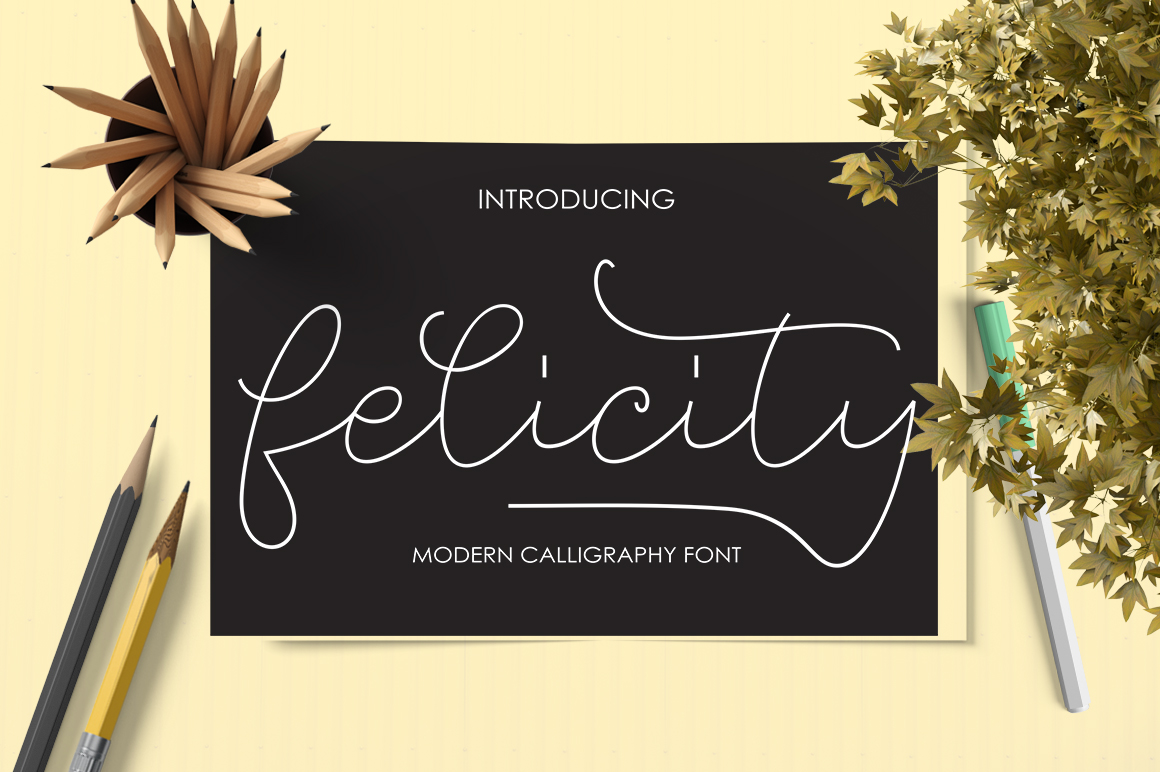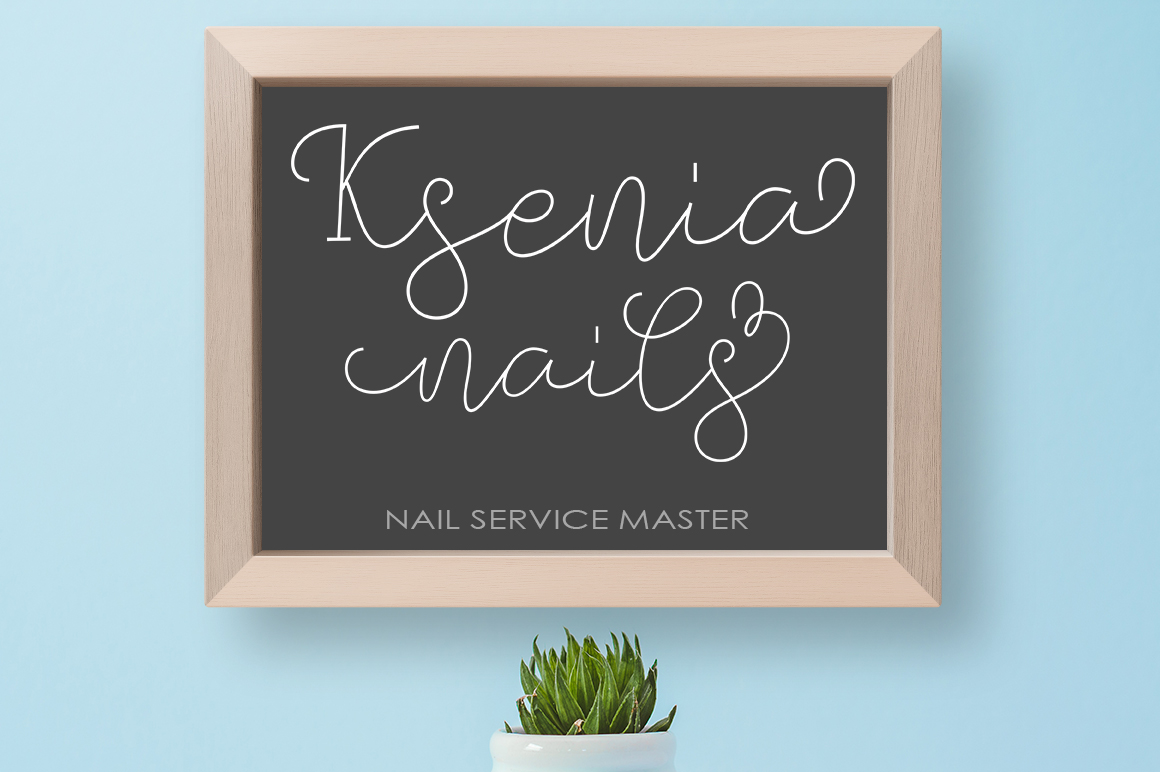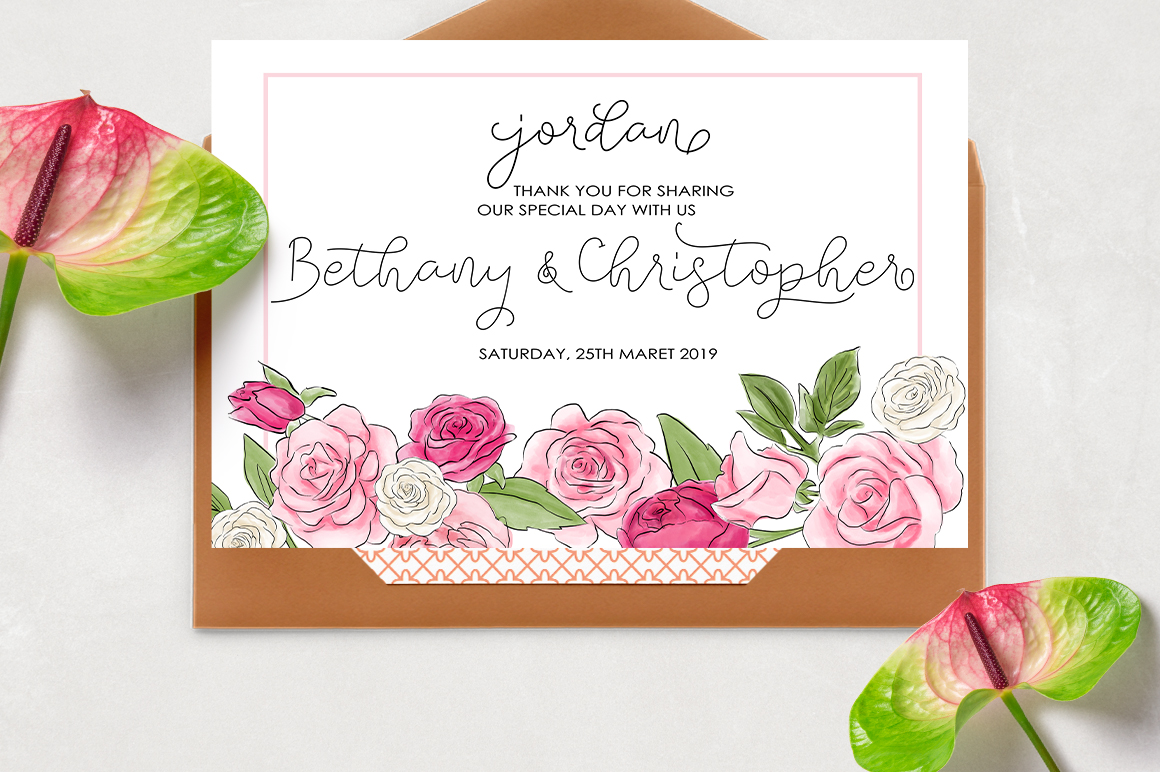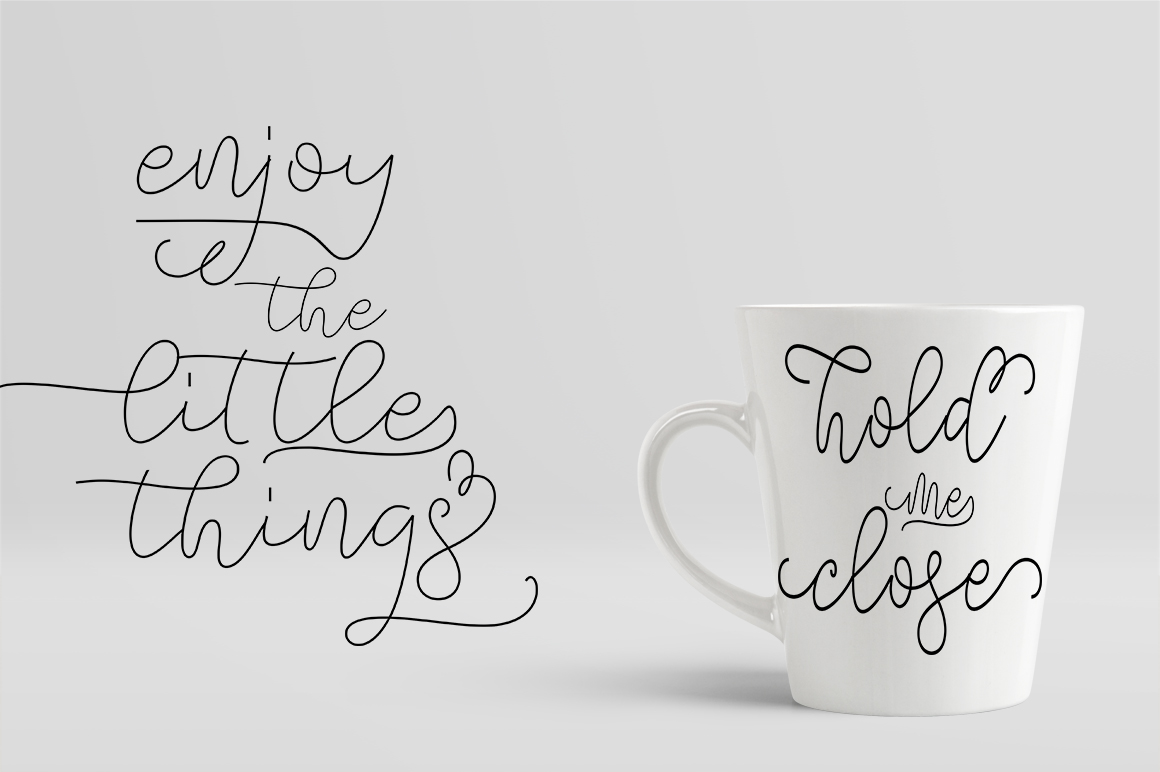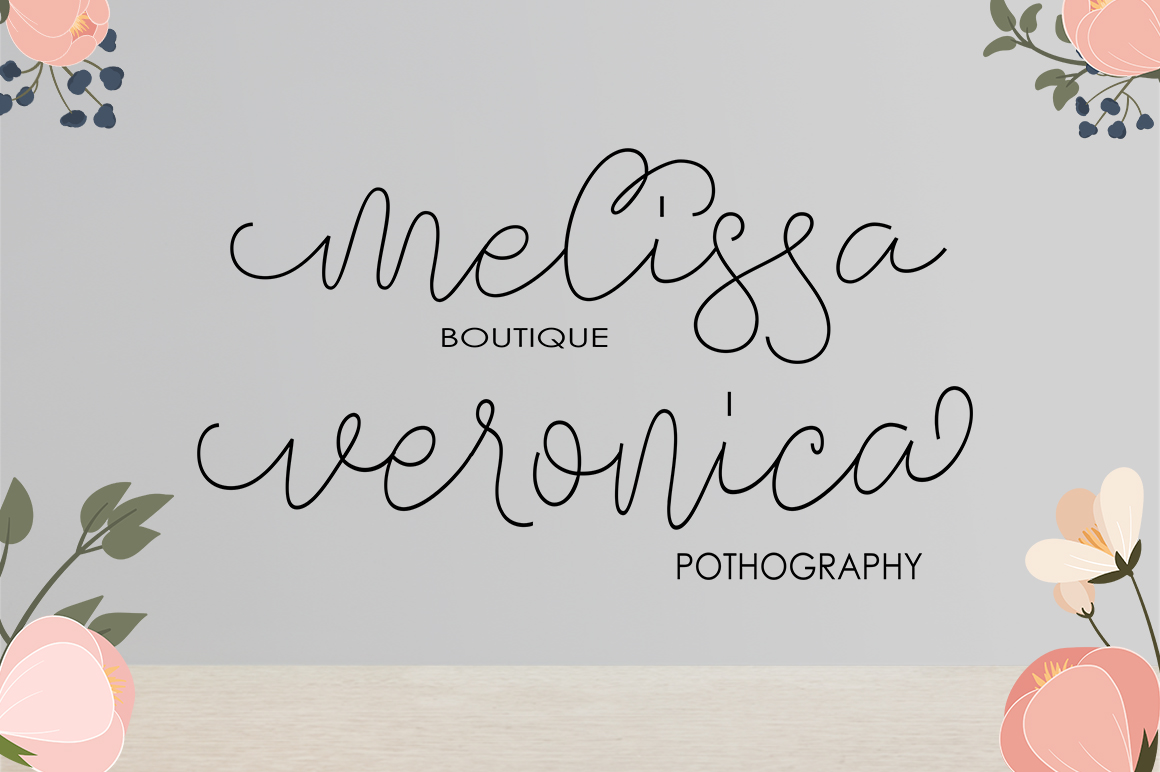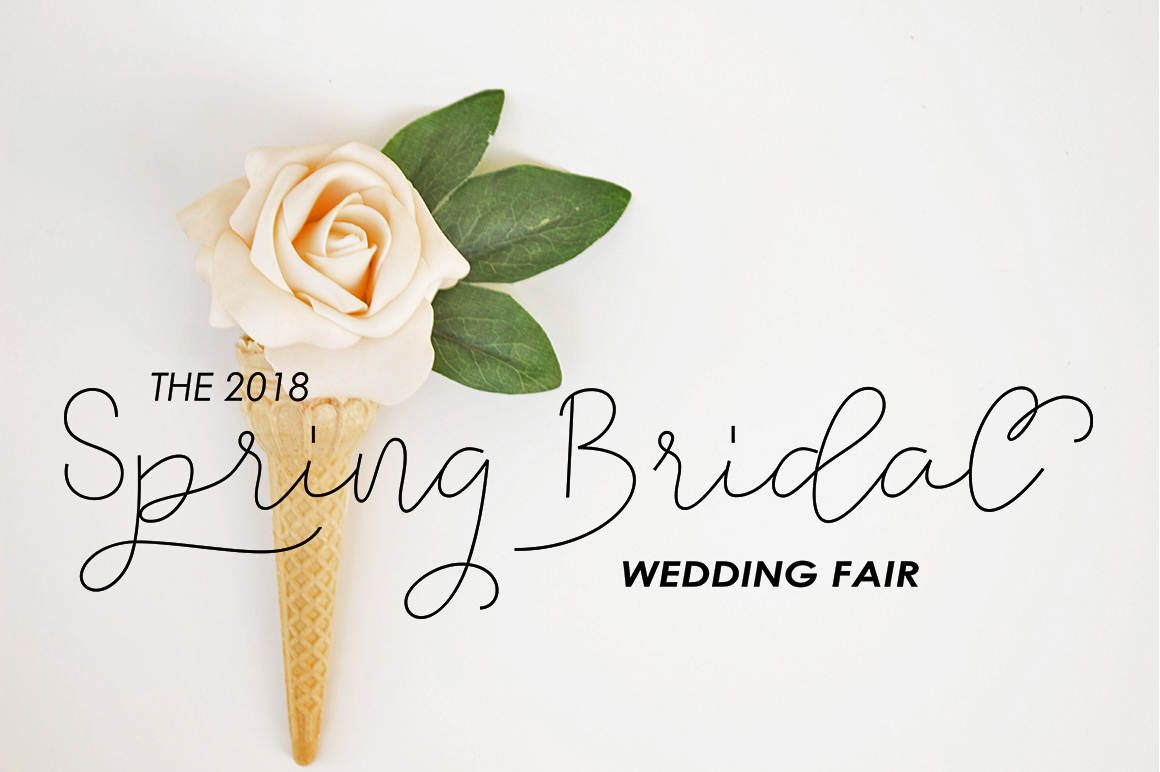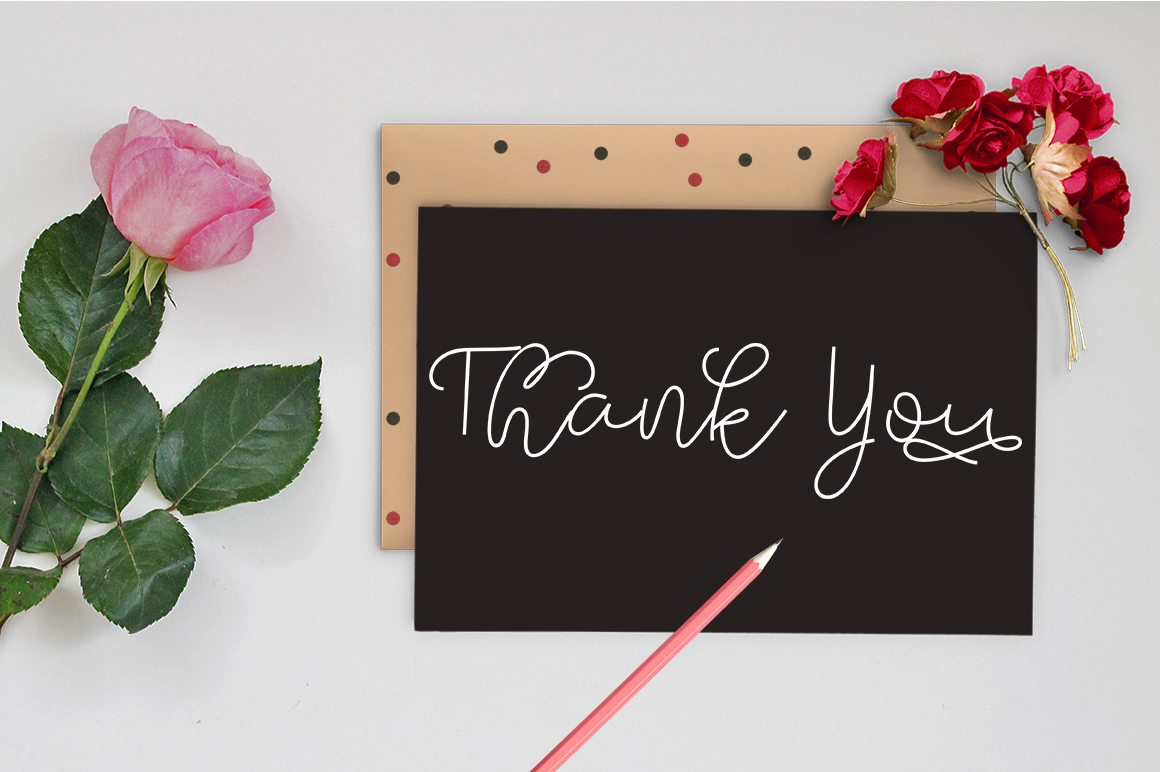
Felicity Font
About Felicity Font
Felicity Script is a font with a calligraphic design. It comes in 2 weights: Regular & Bold.
It’s a casual font that features many beautiful swashes.